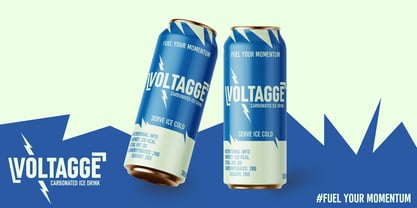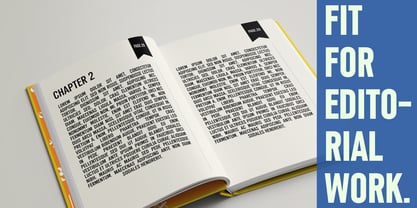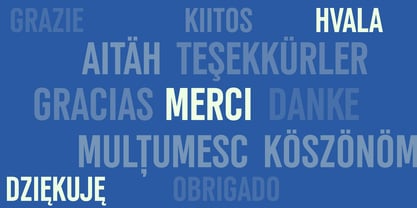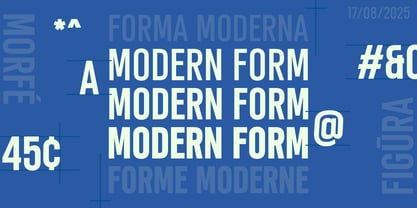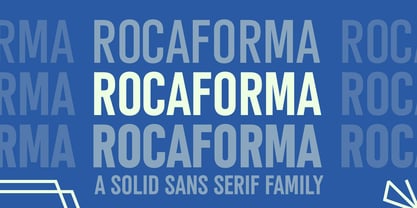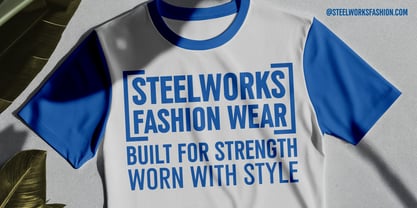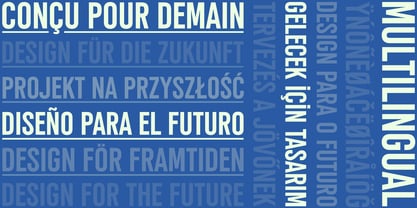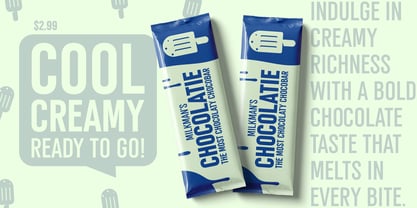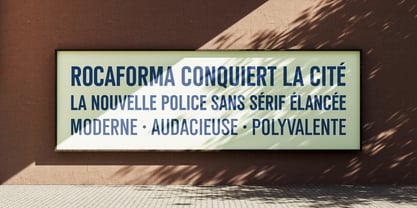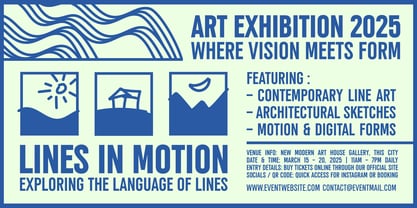
Rocaforma
Rocaforma is a tall, modern sans serif with a sleek geometric build and subtle humanist touches. Its dense vertical proportions and clean forms give it a commanding presence, while rounded curves and gentle stroke contrast keep it approachable and versatile. Designed as an all-caps display typeface, Rocaforma shines in branding, packaging, posters, and bold editorial layouts. Whether used in headlines or logos, it delivers a strong, contemporary voice with elegance and precision.